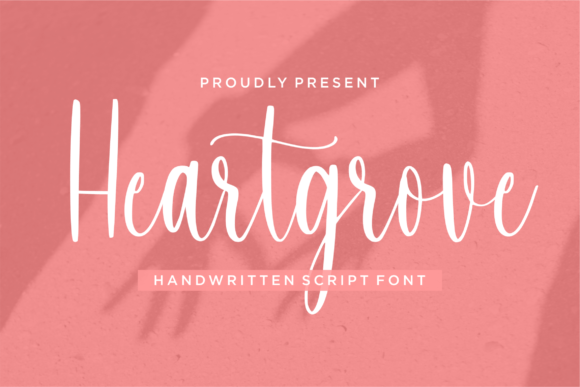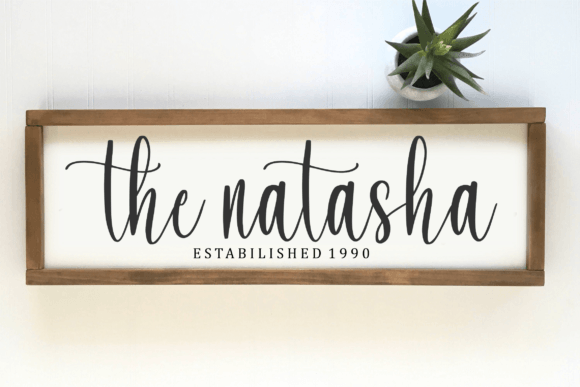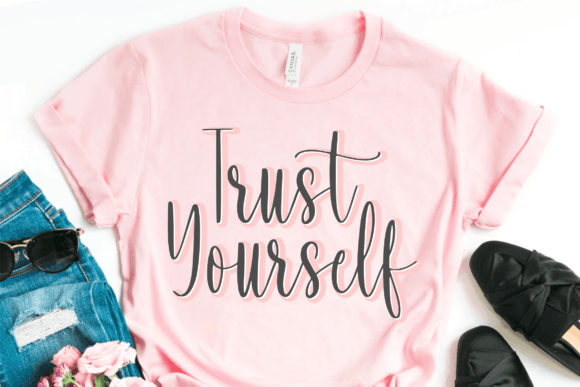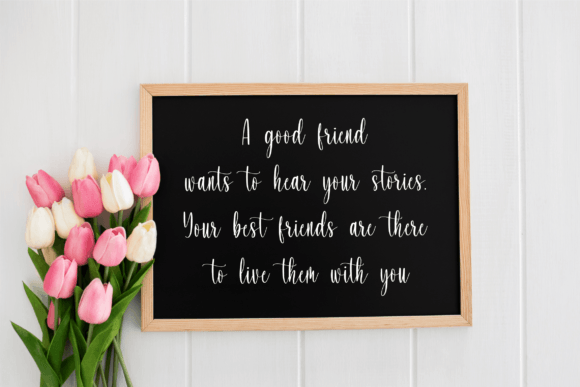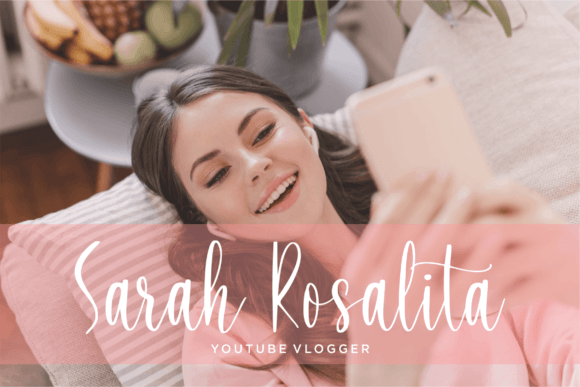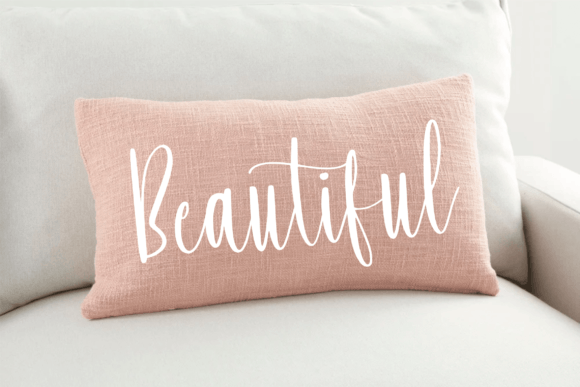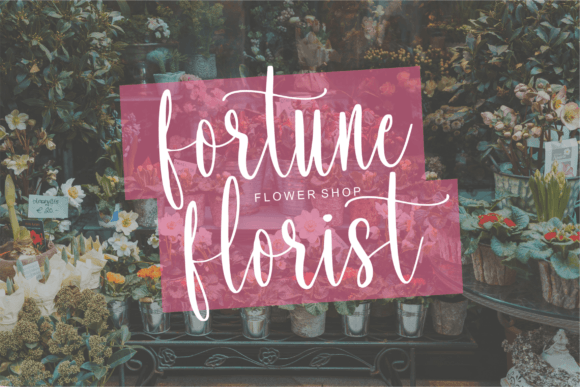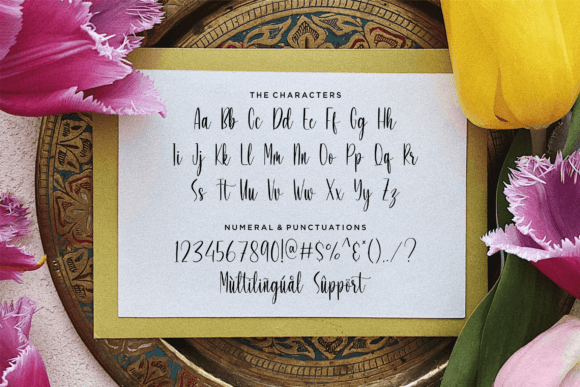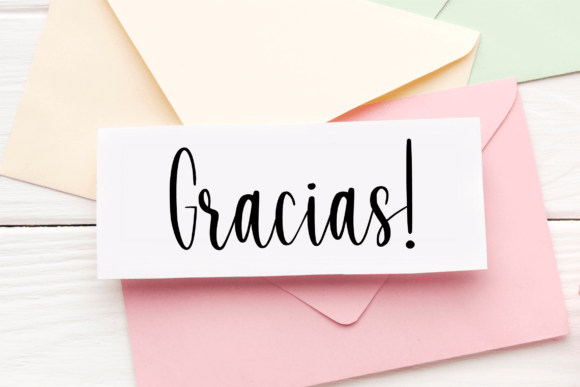
Heartgrove Font
About Heartgrove Font
“Heartgrove”: Elevate Playfulness with a Masterfully Handmade Font
Introducing “Heartgrove,” a font that exudes a playfully handmade charm, delivering an irresistibly playful handwritten aesthetic. This display font is more than just letters on a screen; it’s a creative tool designed to infuse a special and playful touch into any design idea you can imagine. Masterfully crafted, “Heartgrove” has the potential to become a true favorite, bringing each of your creative ideas to the highest level.
The essence of “Heartgrove” lies in its playful and handmade feel. Each letter is crafted with care and whimsy, making it the perfect choice for designs that require a lighthearted and creative touch. Whether you’re working on posters, social media graphics, or any project that demands a touch of playfulness, this font becomes the secret ingredient that transforms the ordinary into the extraordinary.
The display nature of “Heartgrove” allows it to take center stage in your designs. Its distinct style adds a unique personality, making it a standout choice for headers, titles, and any design element that needs to capture attention. The font becomes more than just a typeface; it becomes a visual statement that communicates joy and creativity.
Designed to be a favorite in your font collection, “Heartgrove” offers versatility that extends across various creative ideas. From invitations to product packaging, this font adapts seamlessly, infusing a delightful and handmade quality that elevates the overall aesthetic of your projects. Its potential is limitless, encouraging you to explore and experiment with each stroke.
As you embrace “Heartgrove” in your creative endeavors, you’ll find that it goes beyond being a font—it becomes a design companion that enhances your ideas. Its playful touch brings a sense of joy and character to your work, making it not just visually appealing but emotionally resonant.
In conclusion, “Heartgrove” is more than a font; it’s a playful expression of creativity that adds a special touch to your designs. Whether you’re working on digital or print projects, let “Heartgrove” be the key that unlocks a world of playfulness and charm, bringing each of your creative ideas to new heights of visual delight.